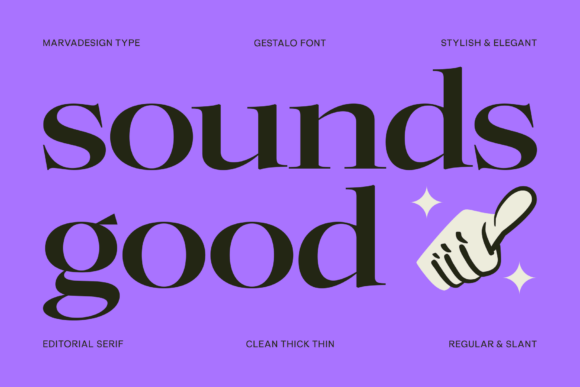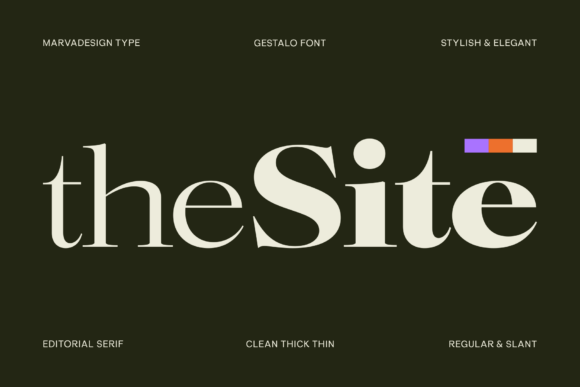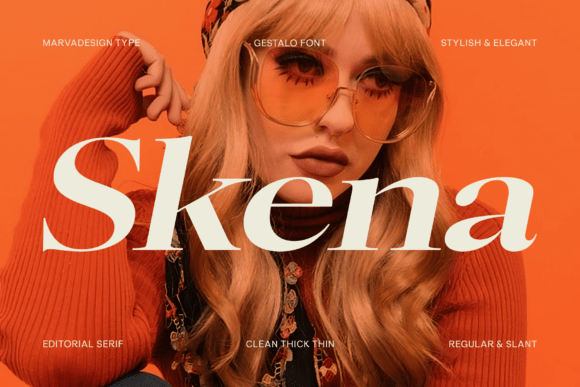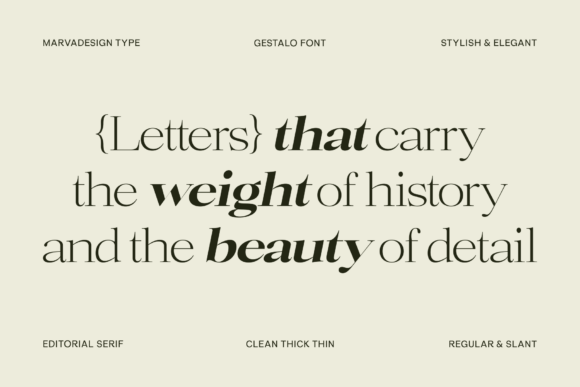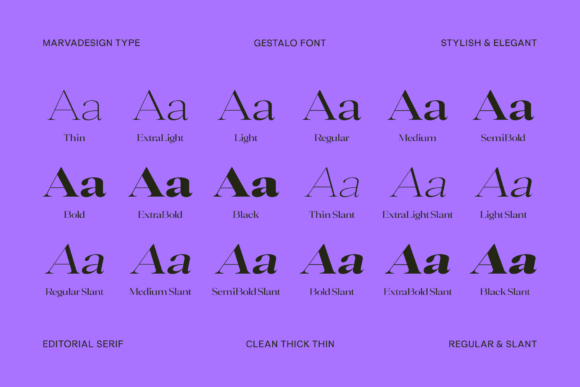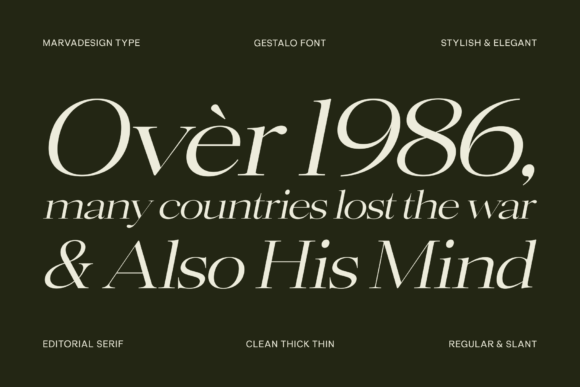
The Elegant Allure of Gestalo Font: A Designer’s Delight
I’ll never forget the struggle I faced while working on a high-end branding project for a luxury fashion client. The goal was to create an editorial layout that exuded sophistication, elegance, and a touch of classic charm. As I scoured the internet for the perfect font, I stumbled upon Gestalo, an elegant serif typeface that instantly caught my attention. In this article, I’ll share my experience with Gestalo, its features, and how to make the most of this beautiful font.
A Personal Review: What I Love and What to Consider
- ✅ Elegant and refined design with clean contrast between thick and thin strokes
- ✅ Wide range of weights and slanted styles for versatility
- ✅ Over 350 glyphs and extensive Latin European language support
- ✅ Luxurious details and sharp serifs for a sophisticated look
- ⚠️ Some users may find the font too ornate or formal for certain projects
- ⚠️ Limited availability of condensed or extended styles
The Story Behind Gestalo: Designer Inspiration
Gestalo was designed with the goal of blending classic editorial charm with modern sophistication. The designer aimed to create a font that would evoke a sense of elegance and refinement, while still feeling contemporary and fresh. With its clean contrast, luxurious details, and extensive language support, Gestalo has become a go-to font for designers seeking a typeface that embodies both history and modernity.
Q: What makes Gestalo suitable for high-end design projects?
A: Gestalo’s elegant design, clean contrast, and luxurious details make it an ideal choice for high-end design projects, such as luxury branding, fashion editorials, and upscale marketing materials.
Q: Can I use Gestalo for body text and long-form content?
A: While Gestalo is primarily designed for headings and titles, its clear and refined design makes it suitable for body text and long-form content, especially in larger sizes.
Q: Does Gestalo support non-Latin languages?
A: Gestalo offers extensive Latin European language support, but its compatibility with non-Latin languages may be limited. It’s best to check the font’s documentation or contact the designer for specific language support.